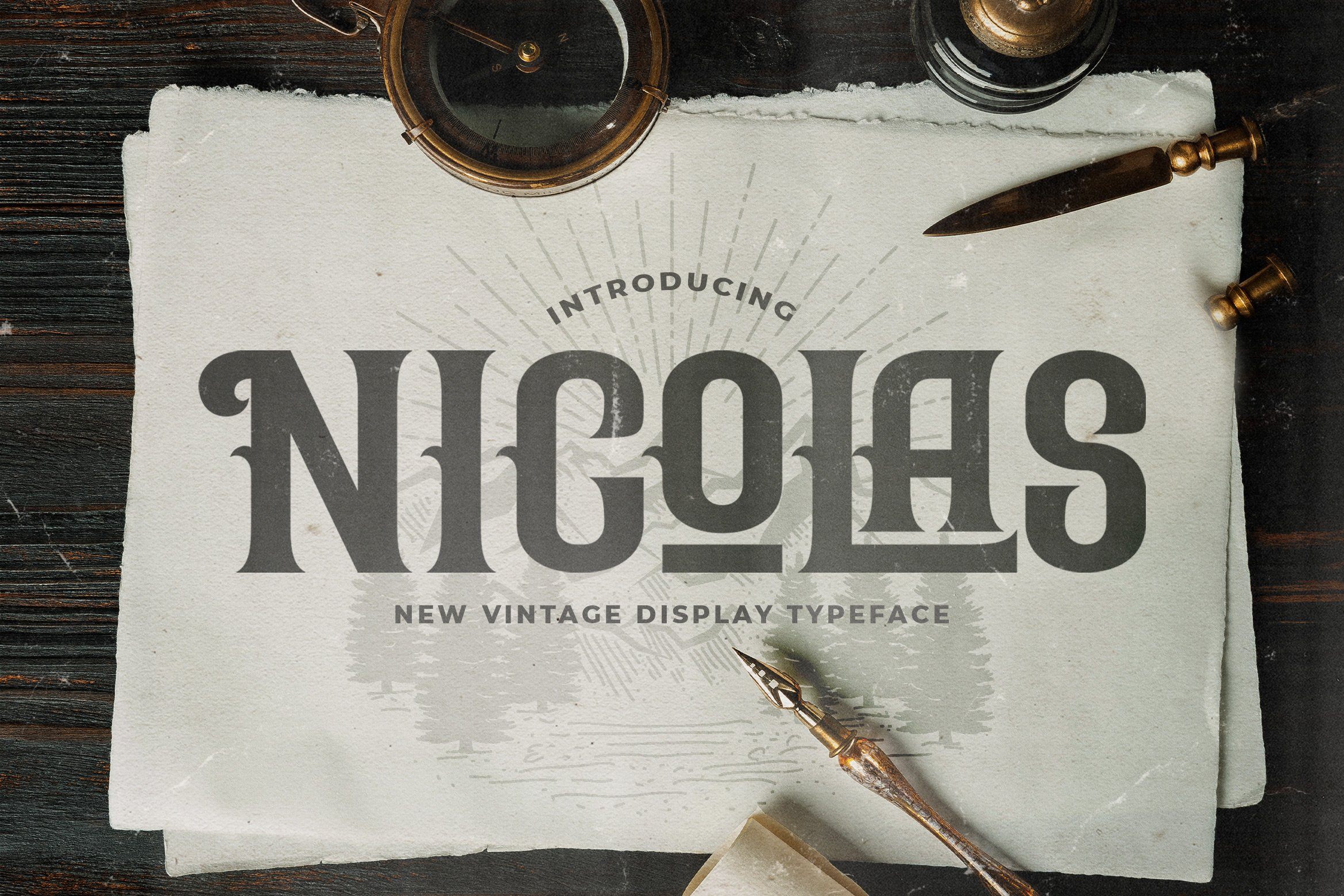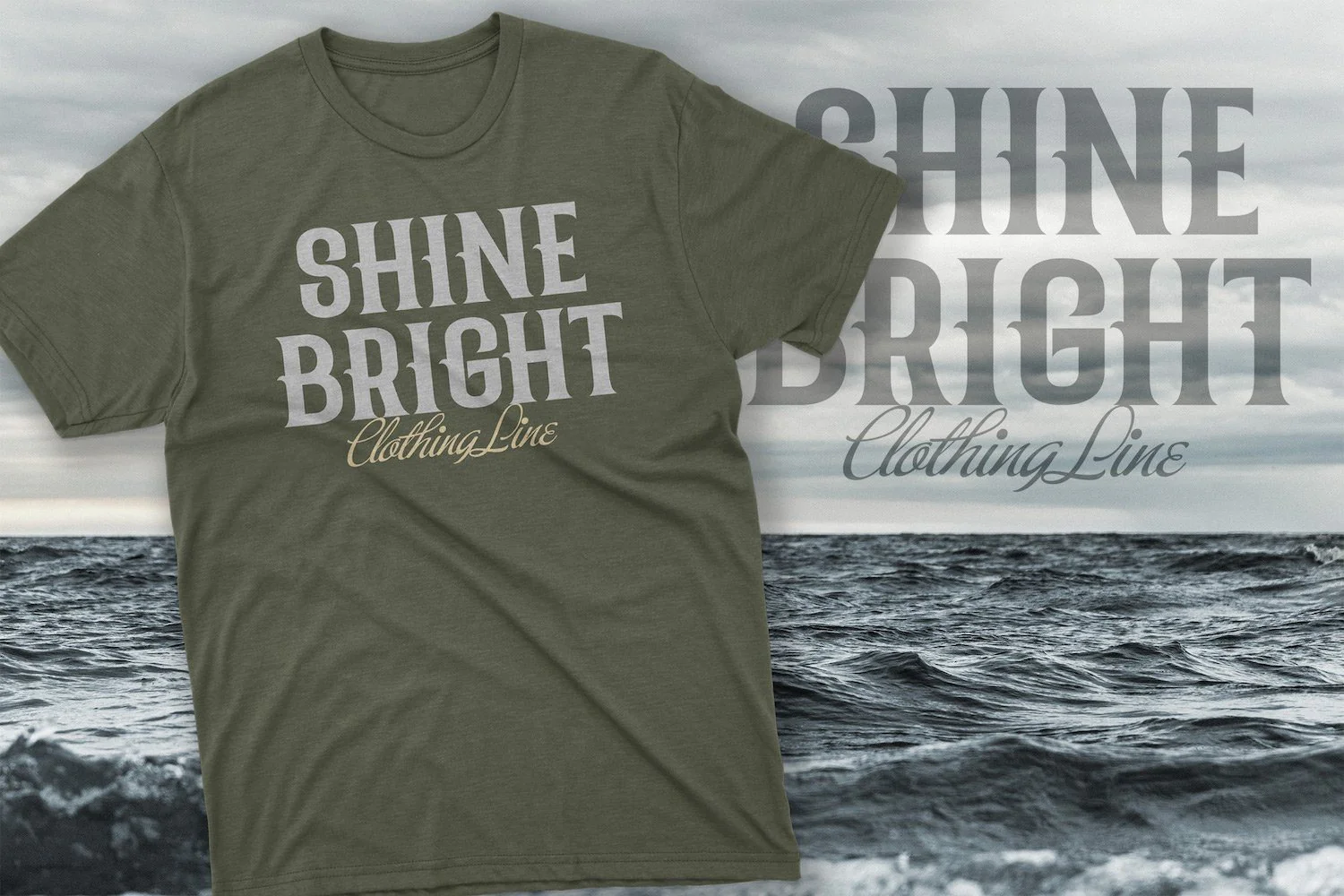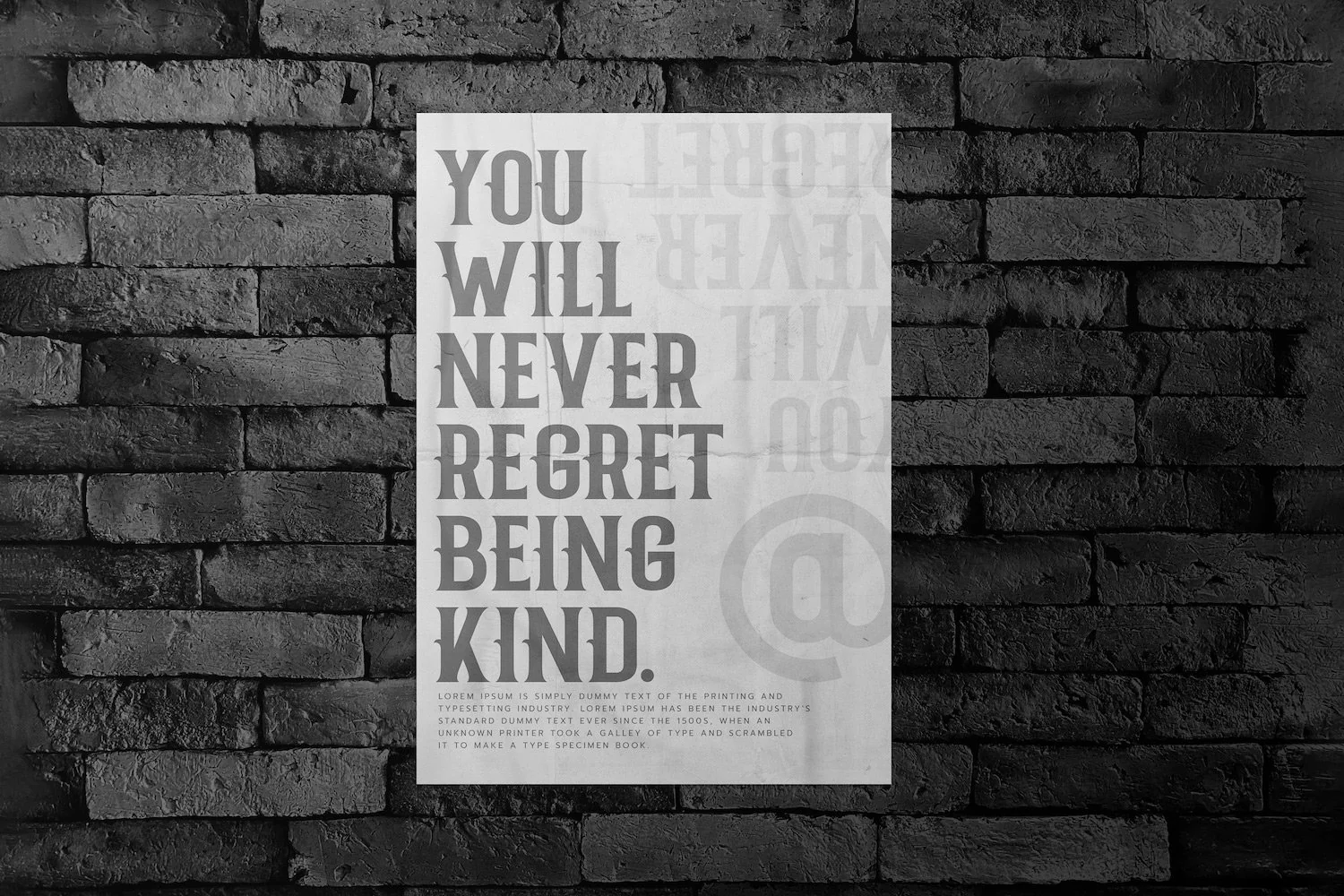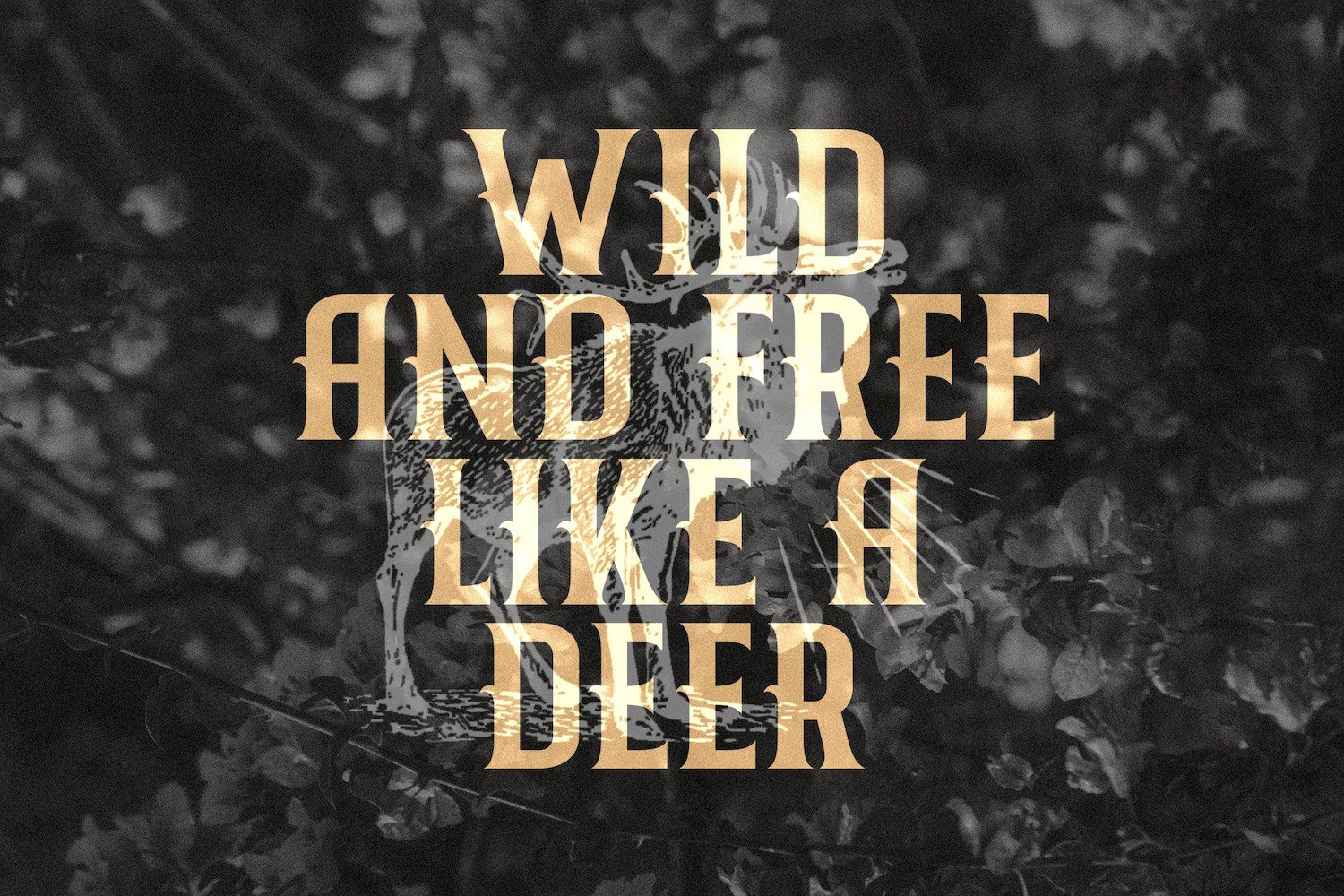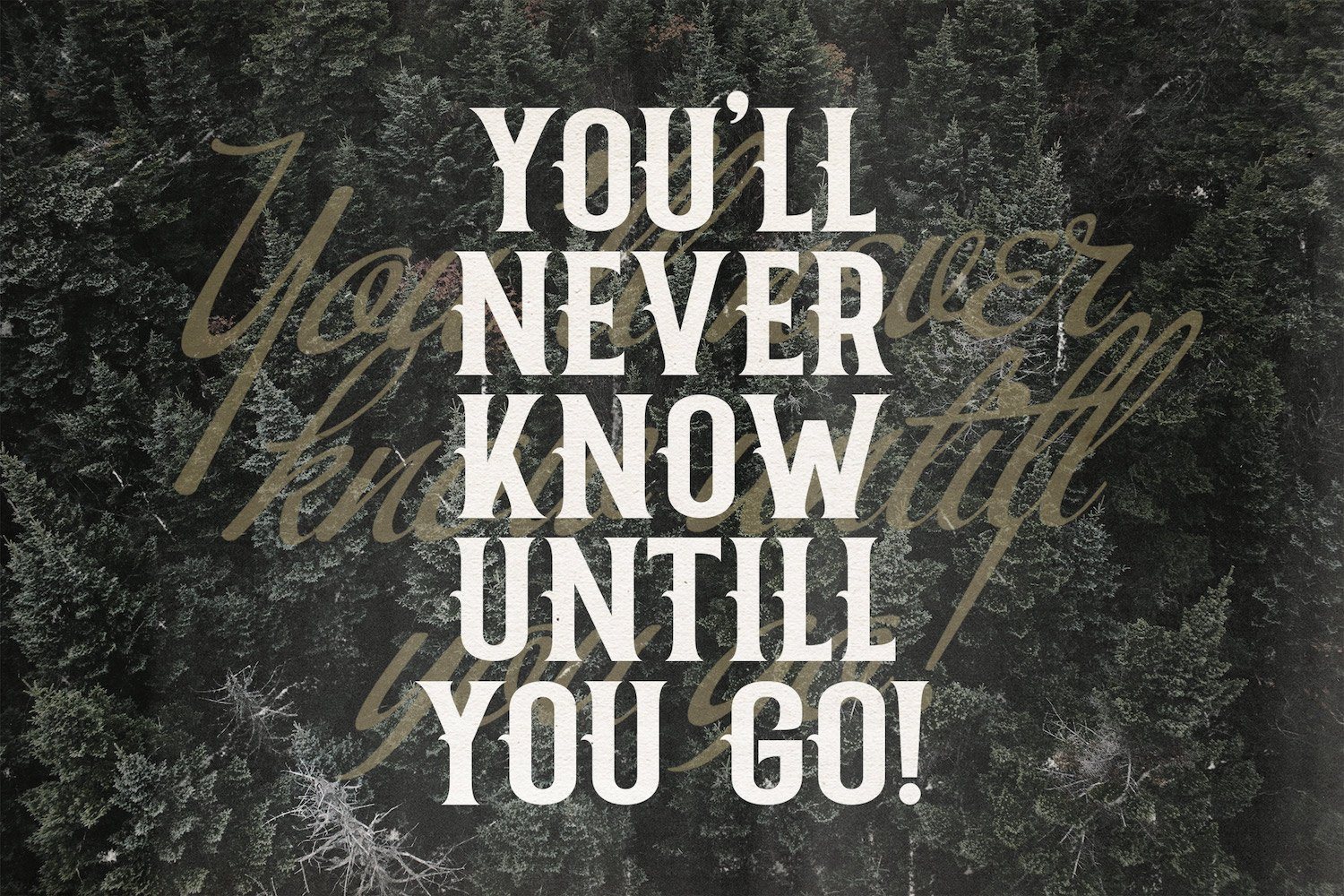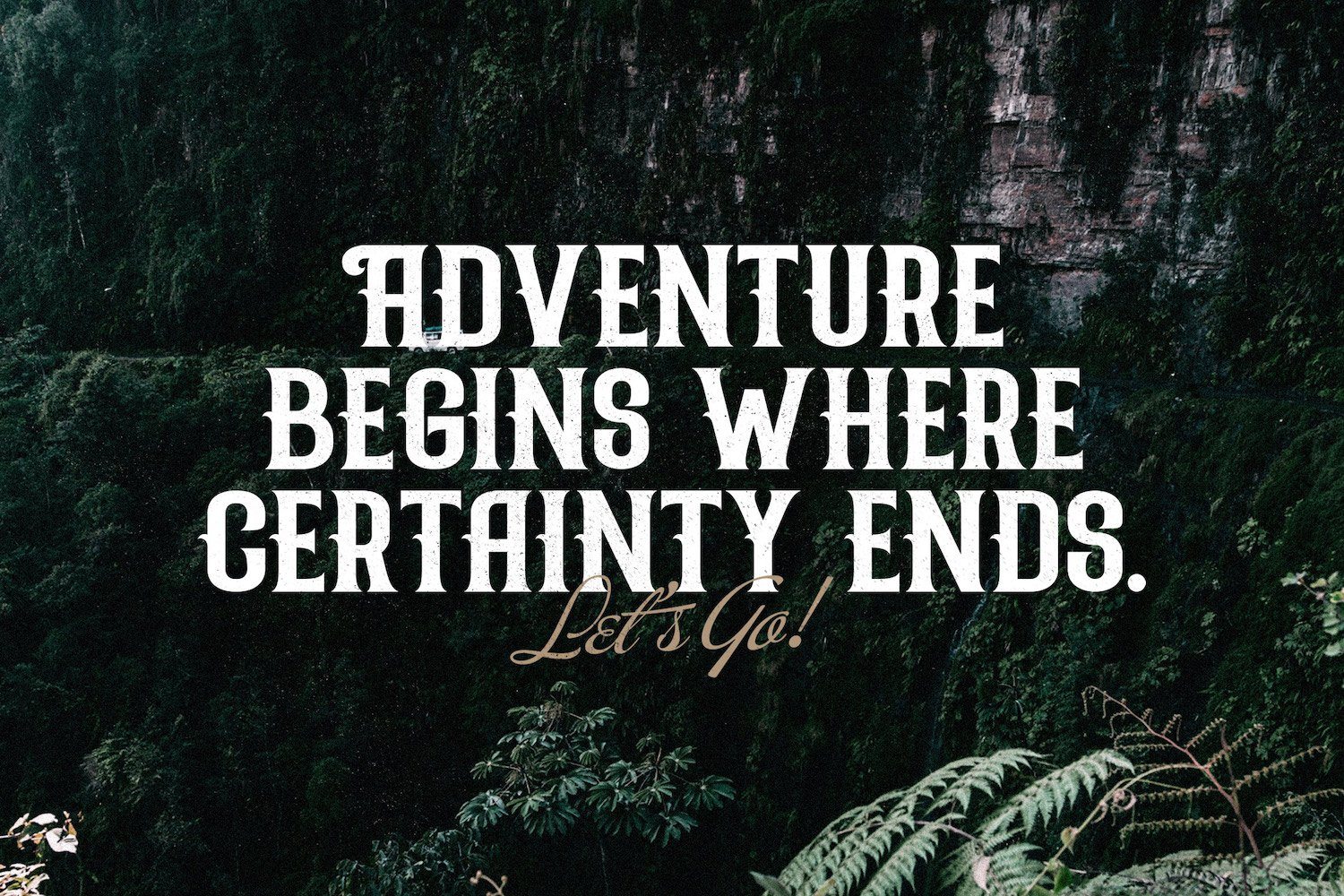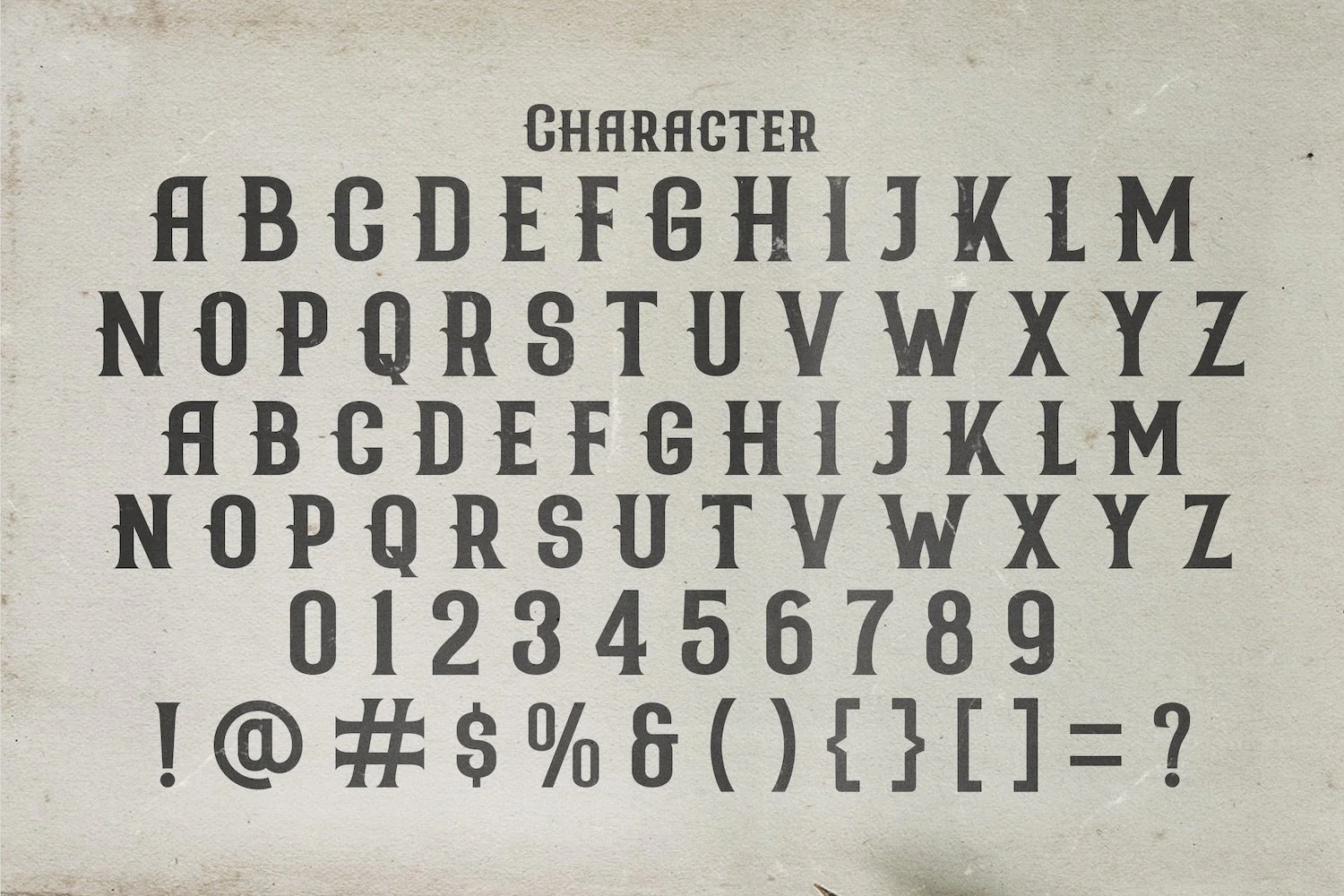
Nicolas - Victorian Decorative Font
Introducing Nicolas - Victorian Decorative Font
Nicolas is a unique, stylish and elegant vintage victorian font. This typeface will look truly outstanding in a wide range of contexts.